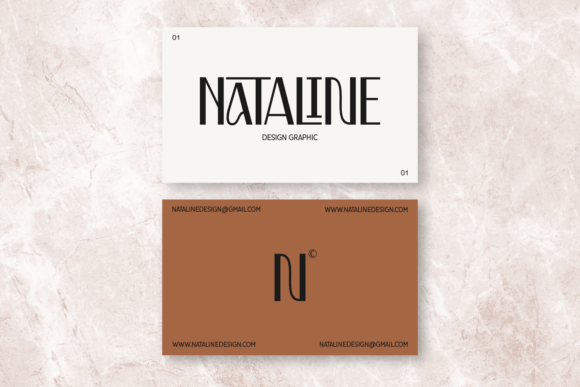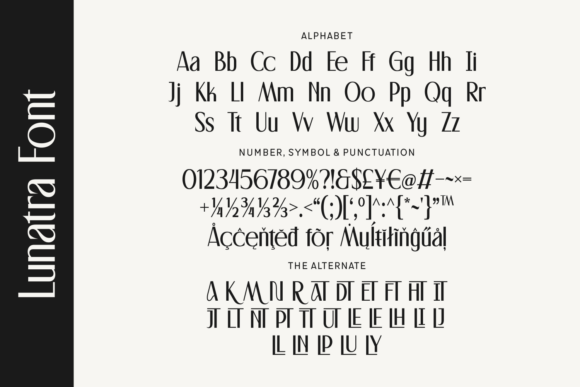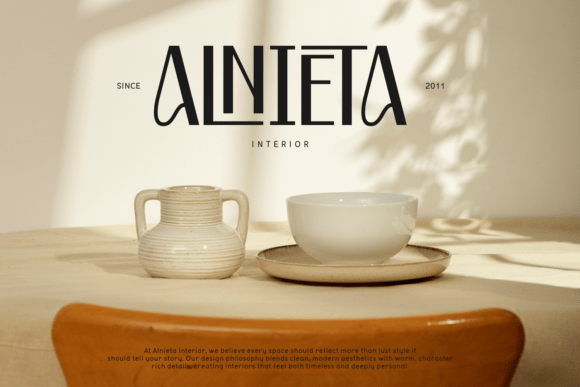
Introduction to Lunatra Font
Lunatra is a stunning modern sans serif font with artistic alternates and refined lines.
Its unique character shapes and elevated details give it a contemporary yet expressive lookโperfect for boutique logos, packaging, art-driven brands, and creative projects that demand personality and sophistication .
Key Features of Lunatra Font